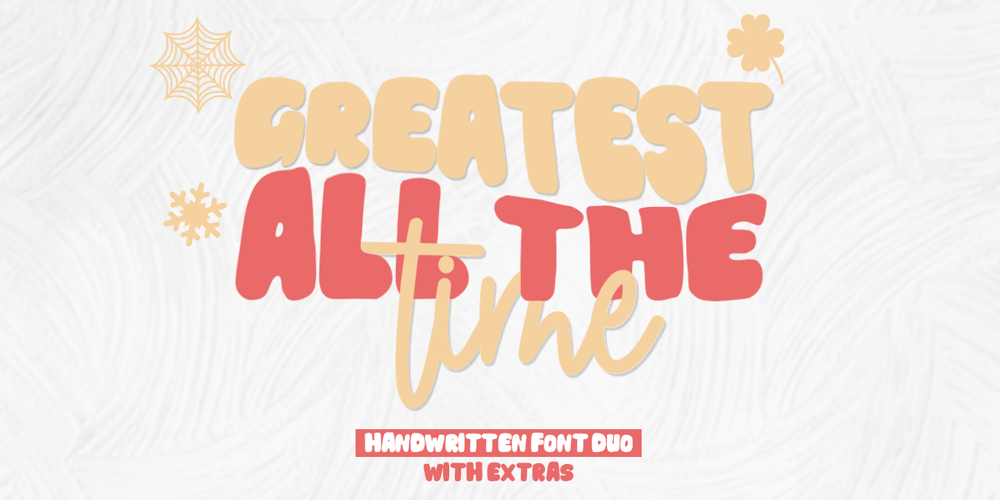
Greatest All of Time
Greatest All of Time font
Greatest All of Time Font Family was designed by Andri Kurniawan and published by Struggle Studio. Greatest All of Time contains 3 styles and family package options. Greatest All the Time – is a Duo Handwritten with Extras and petite (handwritten and modern look) Font Duo, featuring a sweet and gentle look. This original look will appeal to a variety of crafty ideas, from letterhead and titles to writing implements.